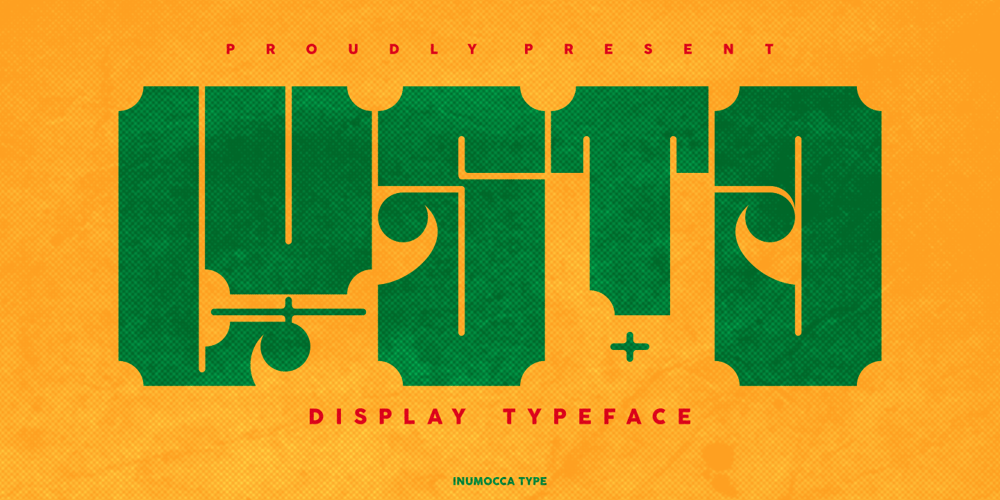
Lusto Font Family was designed by Inu Mocca and published by Inumocca. Lusto contains 1 styles and family package options. Lusto display typeface , come from mexican style and atmosphere.Bold, Powerfull and unique glyphs character.with some unique Alternates for covering your Project, like Branding, Movie Title, Headline Letter, Bookcover or Book Content, Magazine cover, Poster, Quotes Lettering, Logos, and more your project design.- Unique glyphs- Multilingual Characters- UPPERCASE- Lowercase- Numeric- Symbol- Punctuation Character- Ligature- Stylistic Alternates (ss01, ss02, ss03, ss04, ss05)inumocca type Studio